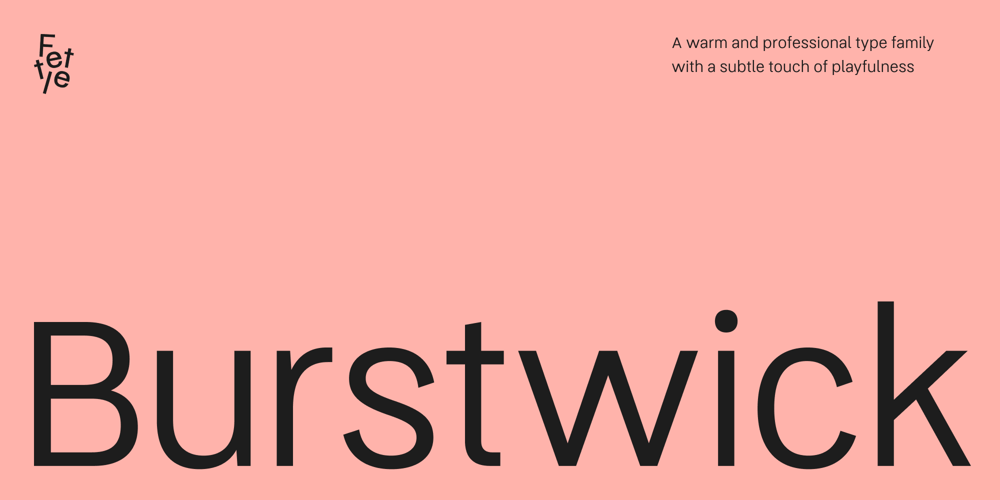
Burstwick Font Family was designed by Thom Milson and published by Fettle Foundry. Burstwick contains 12 styles and family package options. Burstwick is a sans-serif typeface inspired by modern workhorse typefaces and designed for everyday use. It has unique personality but doesn’t suffer in more practical situations, and is very flexible: there are six weights, ranging from thin to bold, and matching oblique italicis.Lifting elements from grotesque, geometric, and humanist styles, and putting legibility at the forefront, each weight is drawn with higher contrast and subtle asymmetrical features to enhance individuality and aid in readability, particularly at body sizes on websites. These features are intended as an alternative to rigid geometric lines, bringing a natural feeling to glyphs, resulting is a friendly, but professional choice for any organisation or designer.The foundation of the design is a large X-height, which further aids in differentiating lowercase characters from one another. This allows Burstwuck to feel open, airy, and really shine when used in single-family type hierachies, particulalry in headlines and larger text.Through its 630 glyphs, Burstwick supports many Latin languages, with thorough kerning for accented character combinations, making it an ideal choice for organisations considering multilingual users, and the perfect addition to any designer’s toolbox.In addition to accented characters, a large number of special characters and alternatives have been included to increase choice and flexibility. Among these are expand currency symbols, oldstyle figures, math operators, and symbols.Language support includes: Bosnian, Catalan, Czech, Danish, German, English, Spanish, Estonian, Finnish, French, Irish, Croatian, Hungarian, Icelandic, Italian, Lithuanian, Latvian, Maltese, Dutch, Norwegian, Polish, Portuguese, Romanian, Slovak, Slovenian, Albanian, Swedish, Turkish.